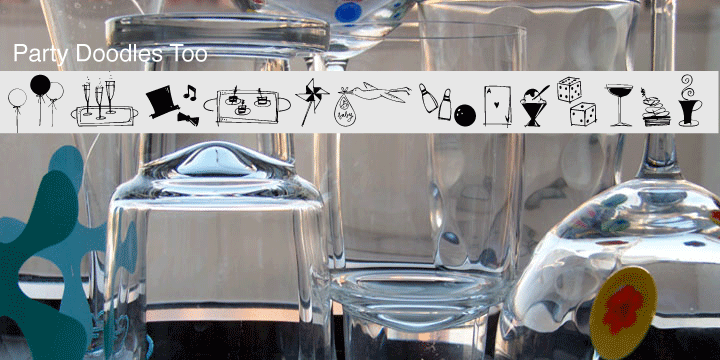
Party Doodles Too is a dingbat font published by Outside the Line.
Party Doodles Too is the companion font to the popular font Party Doodles. 29 fun icons including a tray of champagne glasses, appetizers, balloons, pinwheel, stork with a baby, ace of hearts playing card, top hat and tunes, dice, bowling ball and pins, gifts, party umbrellas, cakes, cupcakes, ice cream, lollipop, drinks, corkscrew, noise makers, banners and candy.